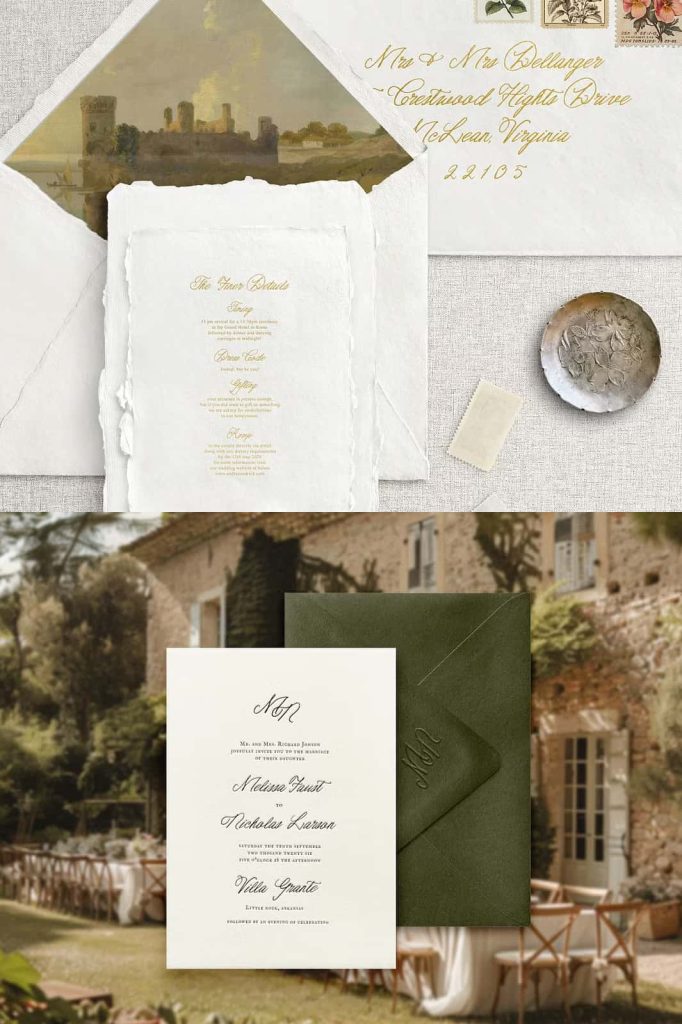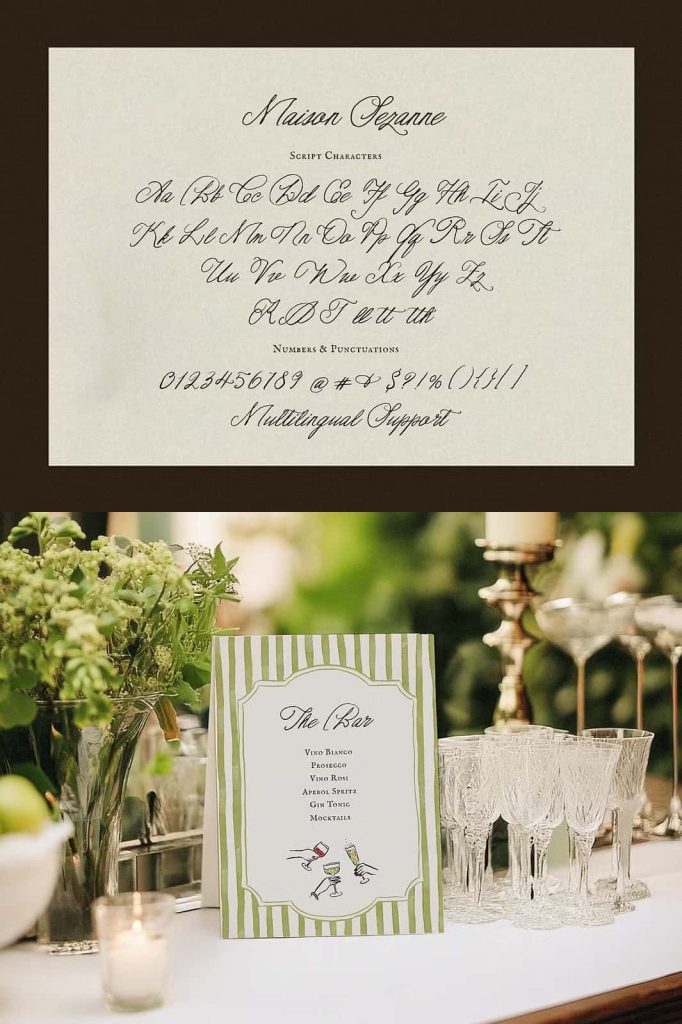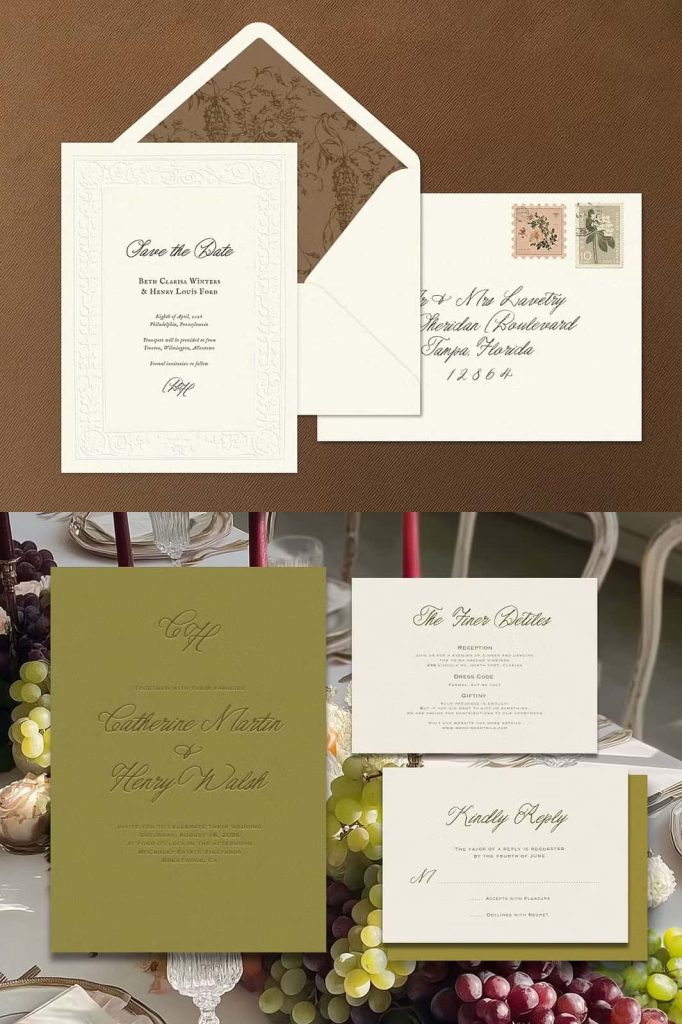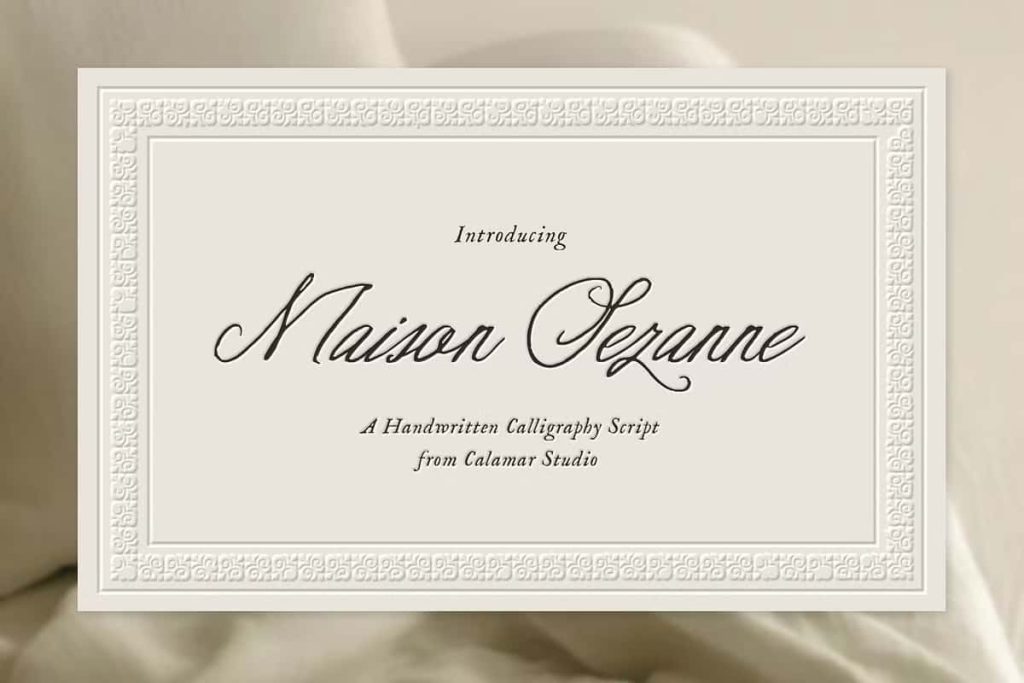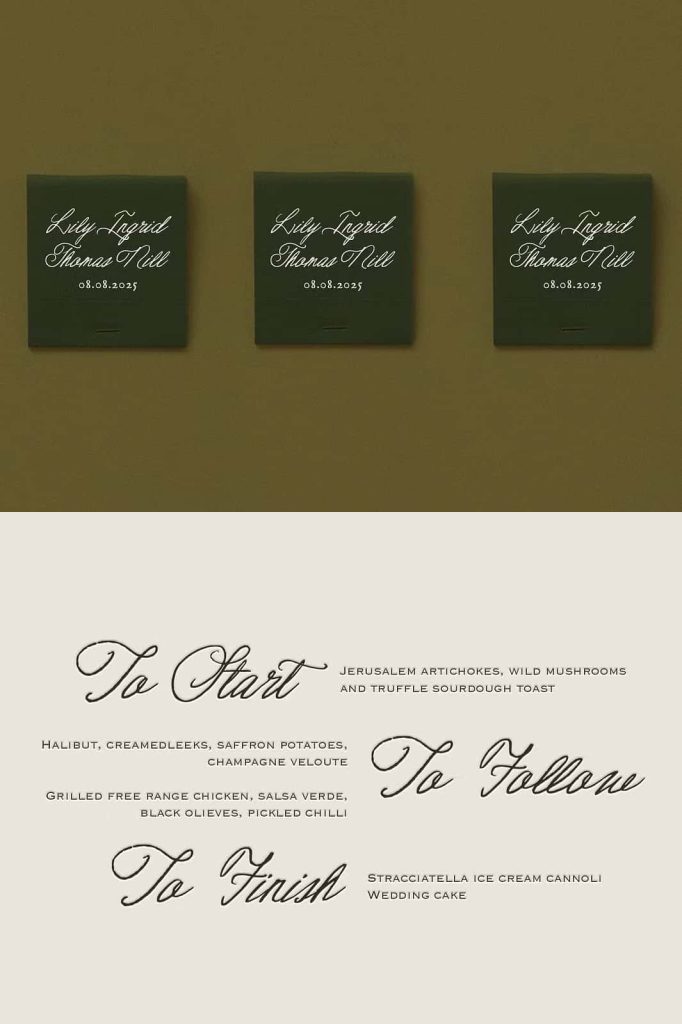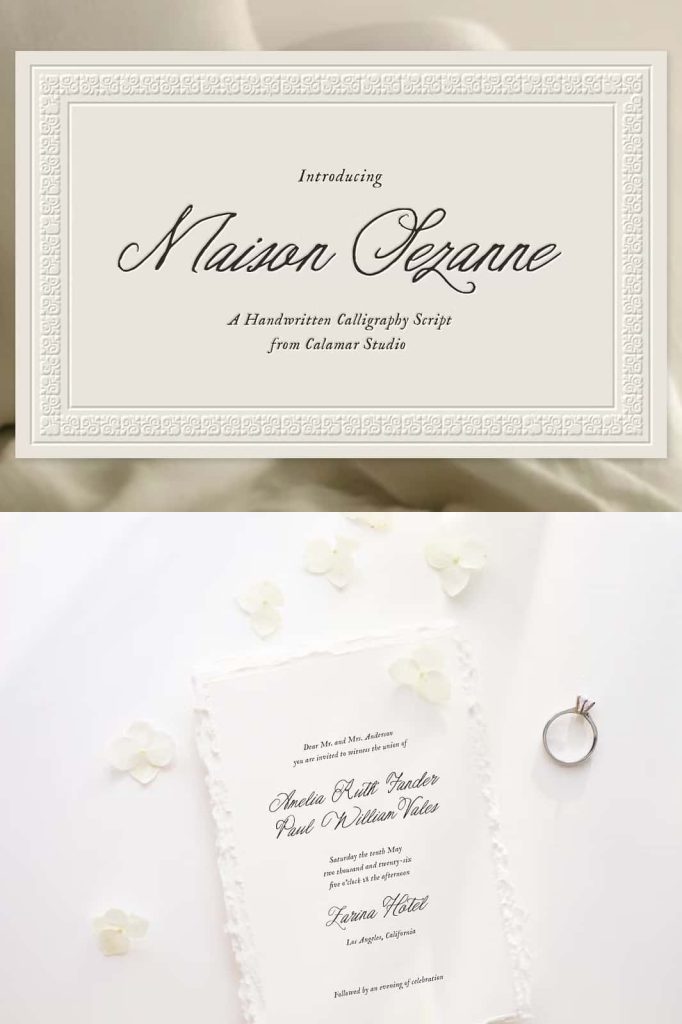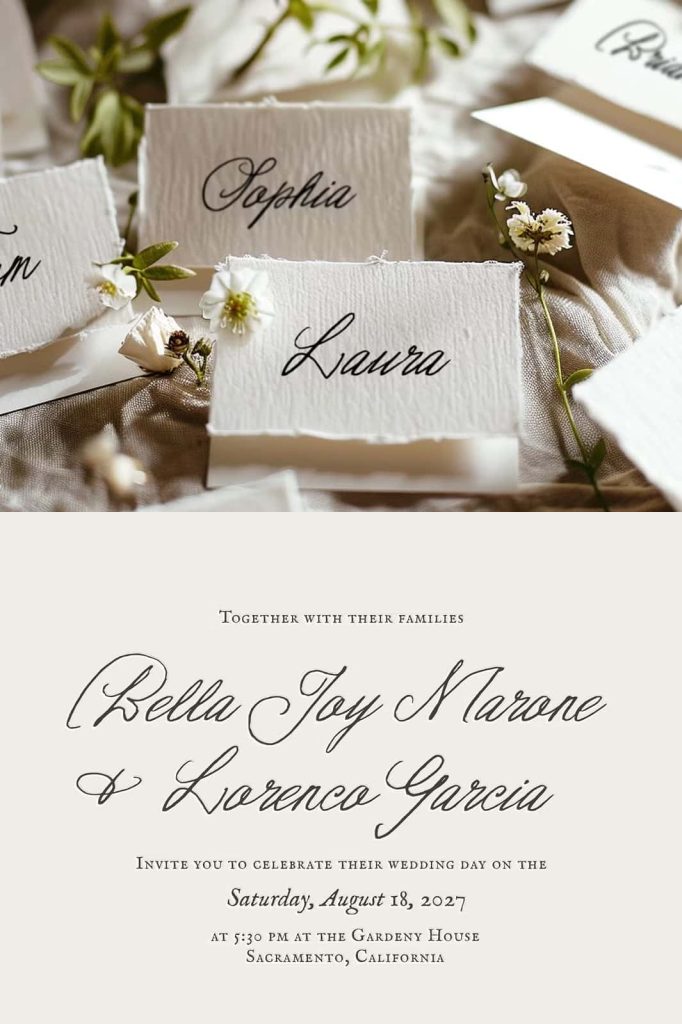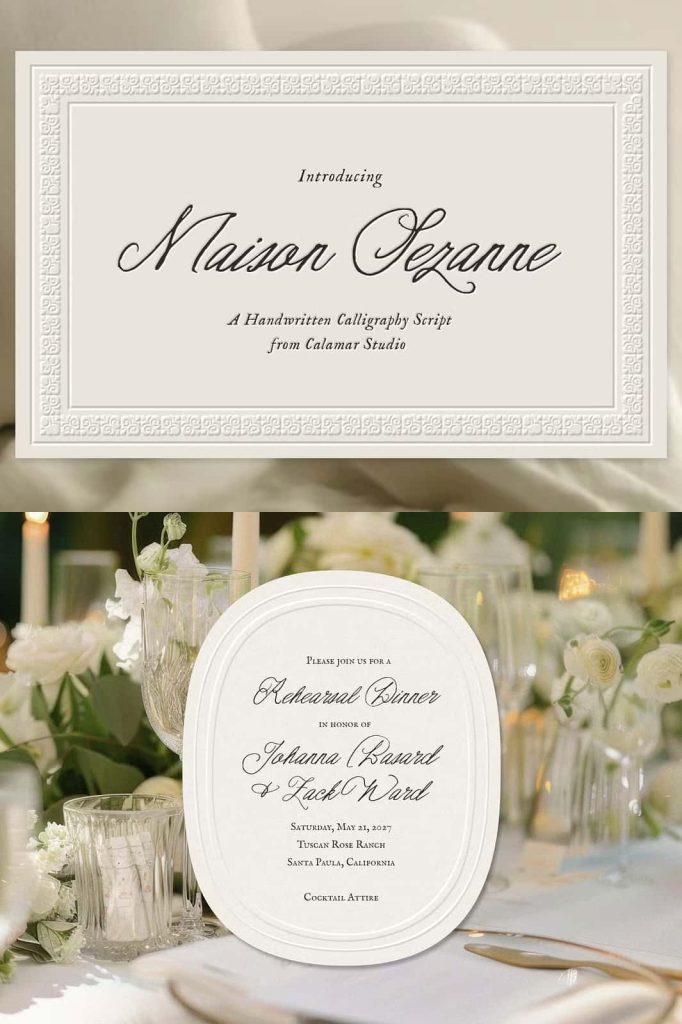
Maison Sezanne Handwritten Script Font
Maison Sezanne is an elegant handwritten script font inspired by refined calligraphy and classic European design traditions. This beautiful typeface combines flowing strokes, graceful curves, and a natural writing rhythm to create typography that feels sophisticated and authentic. Designers who want to bring elegance and warmth into their projects will appreciate the refined character that Maison Sezanne delivers.
The font captures the timeless charm often found in handwritten calligraphy. Instead of rigid digital shapes, each letter flows naturally, allowing words to move across the page with a graceful rhythm. This organic movement makes the typeface feel personal and expressive, as if every letter was written carefully by hand.
Maison Sezanne works beautifully in projects that require elegance and emotional appeal. Whether used in branding, invitations, editorial layouts, or product packaging, this handwritten script font elevates typography and transforms ordinary text into refined visual statements.
Inspired by Refined Calligraphy and European Aesthetics
Maison Sezanne draws inspiration from classic calligraphy traditions that have shaped European design for centuries. The letterforms reflect the elegance of handwritten scripts often found in vintage correspondence, luxury branding, and historical manuscripts. This influence gives the font a timeless character that feels both traditional and contemporary.
Designers often search for script fonts that communicate sophistication without appearing overly decorative. Maison Sezanne strikes this balance by maintaining clean, flowing lines while preserving the beauty of expressive calligraphic strokes. The result is a font that looks elegant without feeling excessive or difficult to read.
The subtle variations in stroke thickness and curve direction give the typeface its distinctive personality. These details create a natural rhythm that adds visual interest while maintaining harmony throughout the text.
Elegant Flowing Strokes and Delicate Curves
One of the defining features of Maison Sezanne is its smooth, flowing stroke structure. Each letter connects gracefully with the next, allowing words to form a continuous and visually pleasing line of text. This flowing movement enhances readability while maintaining the artistic beauty of handwritten calligraphy.
The delicate curves within the letterforms create a soft and welcoming appearance. Instead of sharp or rigid shapes, the characters move gently across the page, giving the font a warm and inviting tone. These elegant curves make the typeface suitable for designs that aim to communicate refinement and care.
The natural rhythm of the script also allows designers to create visually balanced layouts. Headlines, titles, and decorative text elements become focal points when set in Maison Sezanne, helping guide the viewer’s attention through the design.
Perfect for Luxury Branding and Creative Projects
Maison Sezanne works exceptionally well in branding projects that require a sense of luxury and sophistication. Fashion brands, beauty products, lifestyle businesses, and boutique companies can use this font to create logos and branding elements that feel refined and memorable.
When used in logo design, the elegant script creates a distinctive visual identity that communicates professionalism and style. The handcrafted quality of the letters adds authenticity, which helps brands connect emotionally with their audience.
Designers can also apply Maison Sezanne to packaging design, promotional materials, and marketing graphics. The script style enhances product presentation by adding a touch of elegance and artistic craftsmanship.
Ideal for Wedding Invitations and Elegant Stationery
Wedding design projects often require fonts that communicate romance and beauty. Maison Sezanne excels in this area thanks to its graceful calligraphic structure and romantic visual tone. Invitations, save-the-date cards, and wedding stationery become more memorable when paired with expressive script typography.
Couples often want their wedding materials to feel personal and unique. By using Maison Sezanne, designers can create invitations that look handcrafted and meaningful. The natural flow of the letters mirrors the elegance and emotion of special celebrations.
The font also works beautifully in menus, event signage, and thank-you cards, helping maintain a cohesive visual theme throughout the entire event design.
A Versatile Script Font for Modern Designers
Although Maison Sezanne draws inspiration from classic calligraphy, it remains versatile enough for modern design environments. Designers can use the font across both print and digital media, including social media graphics, editorial layouts, websites, and promotional materials.
The script pairs well with clean sans-serif fonts or traditional serif typefaces. By combining Maison Sezanne with simpler supporting fonts, designers can create balanced typography systems that highlight key messages while maintaining readability.
From luxury branding and product packaging to wedding invitations and editorial design, Maison Sezanne enhances creative projects with a sense of warmth and sophistication. Designers who value beautiful typography will find this handwritten script font a powerful tool for building memorable and visually captivating designs.